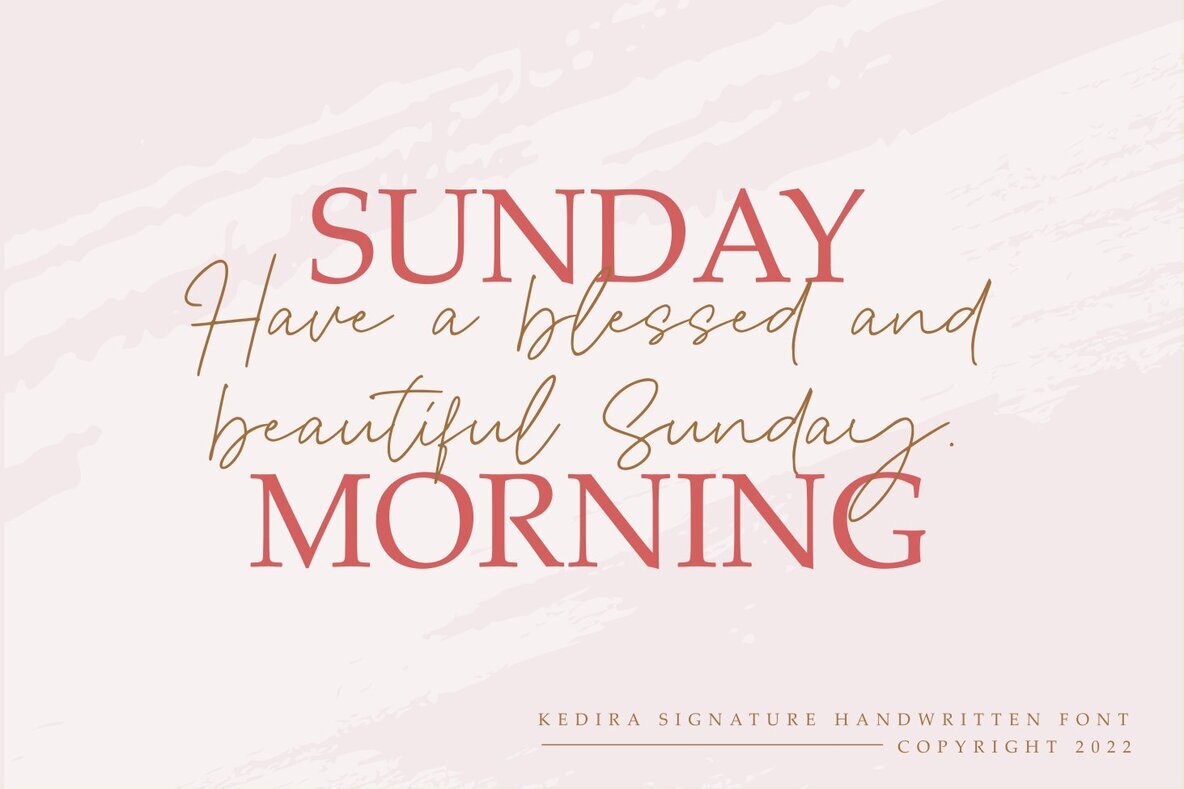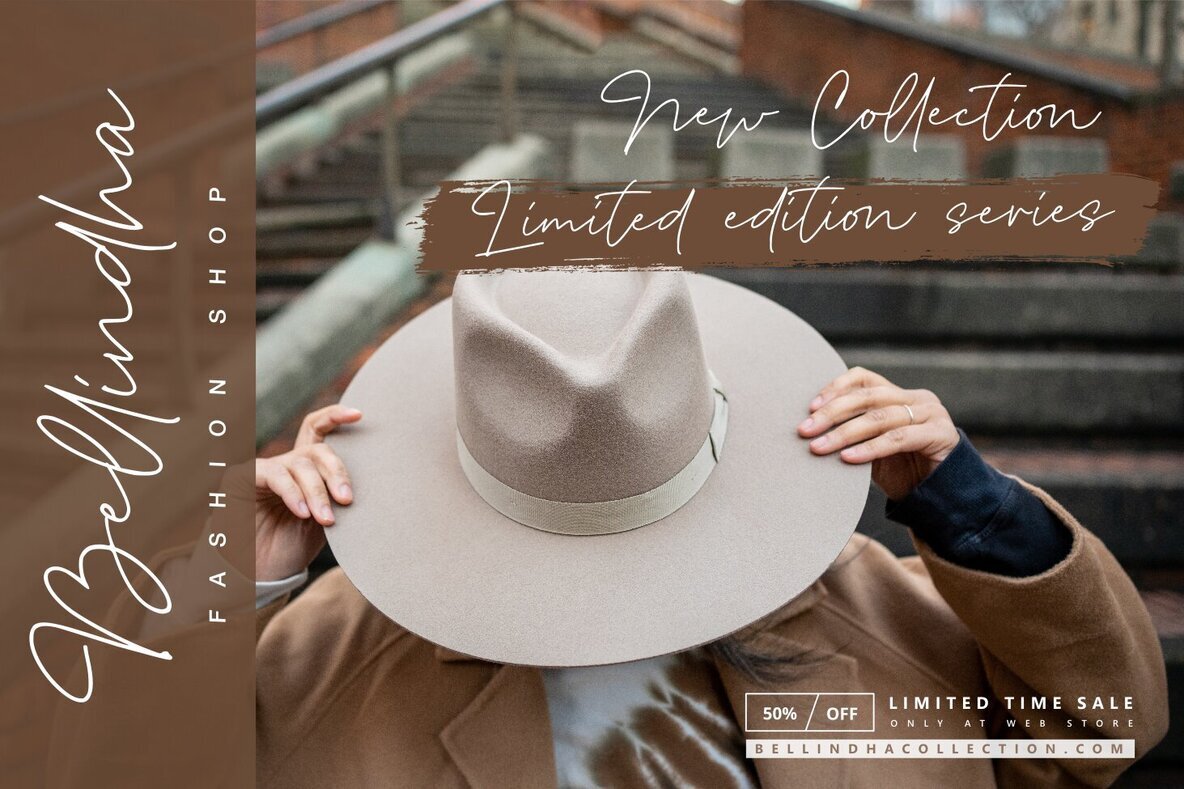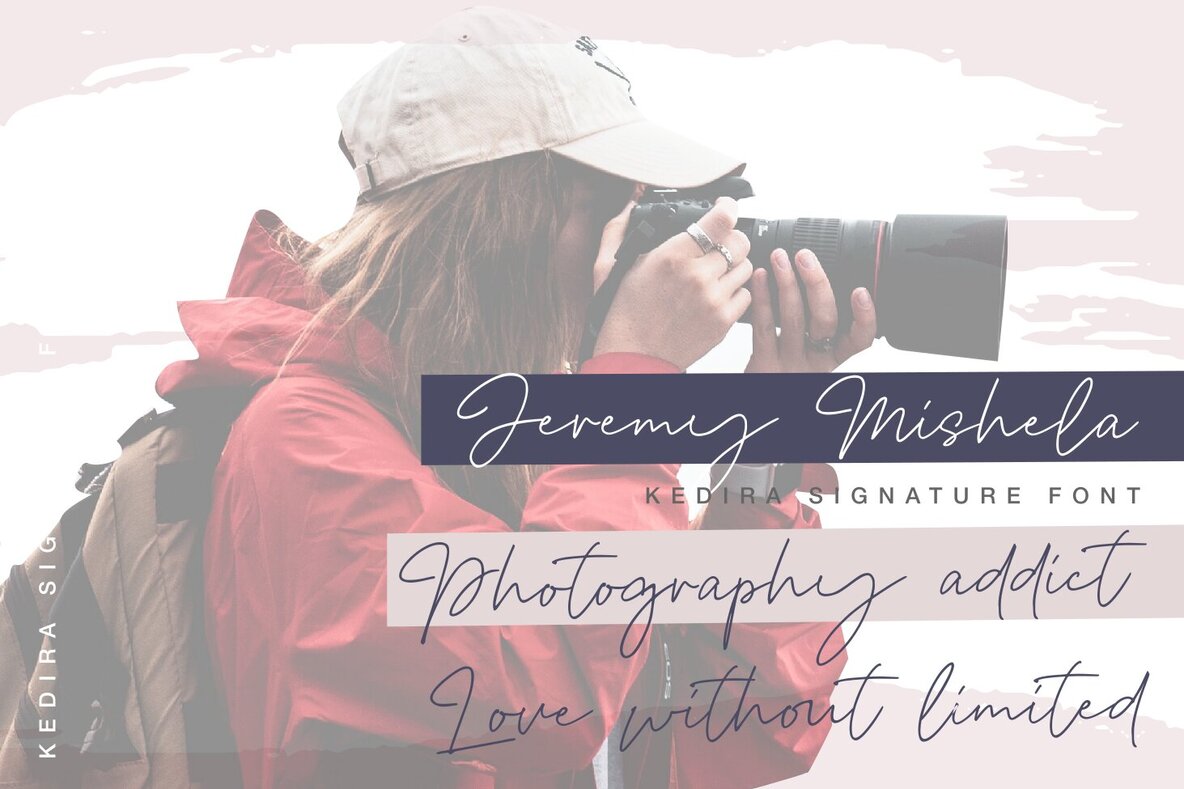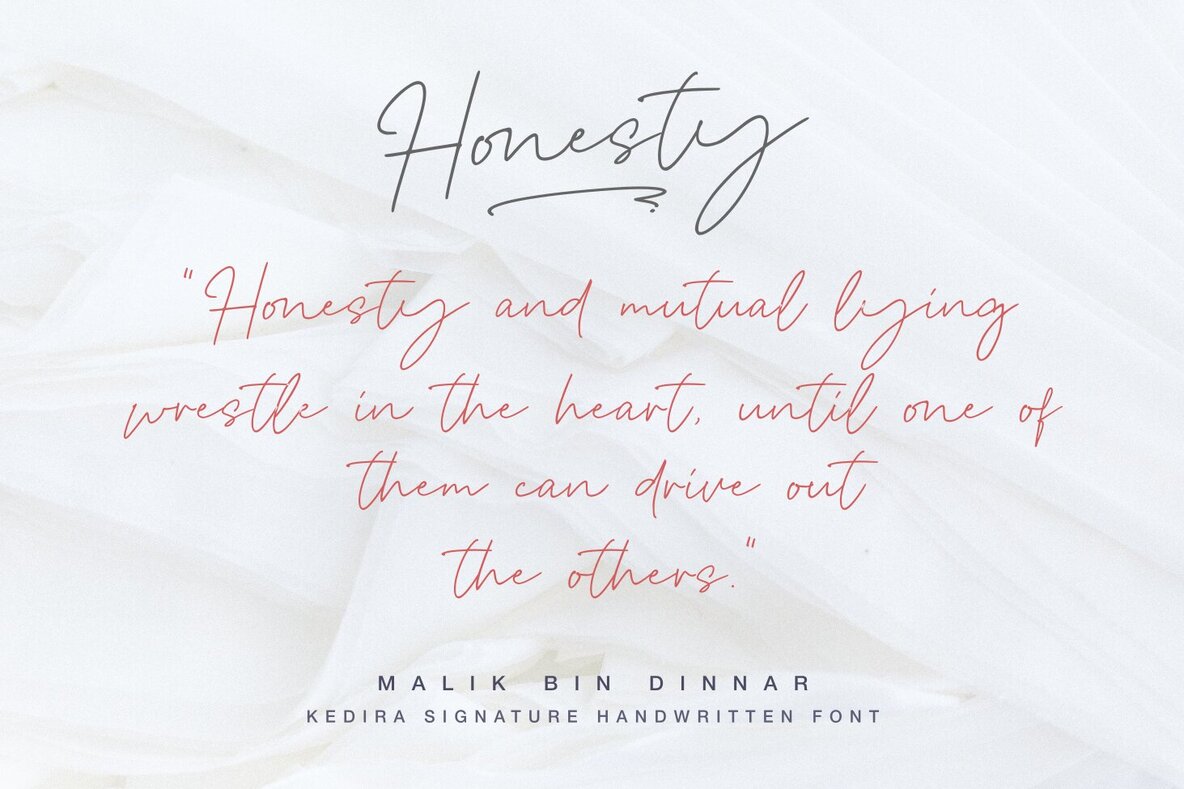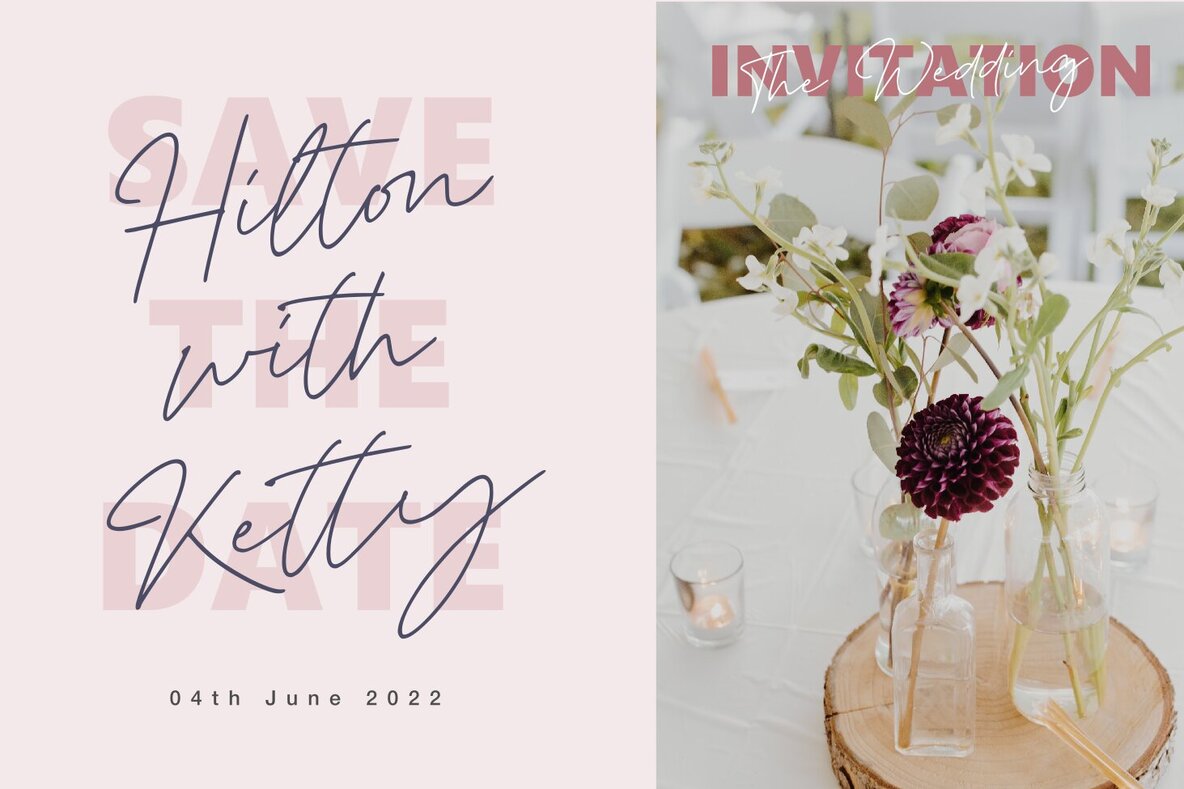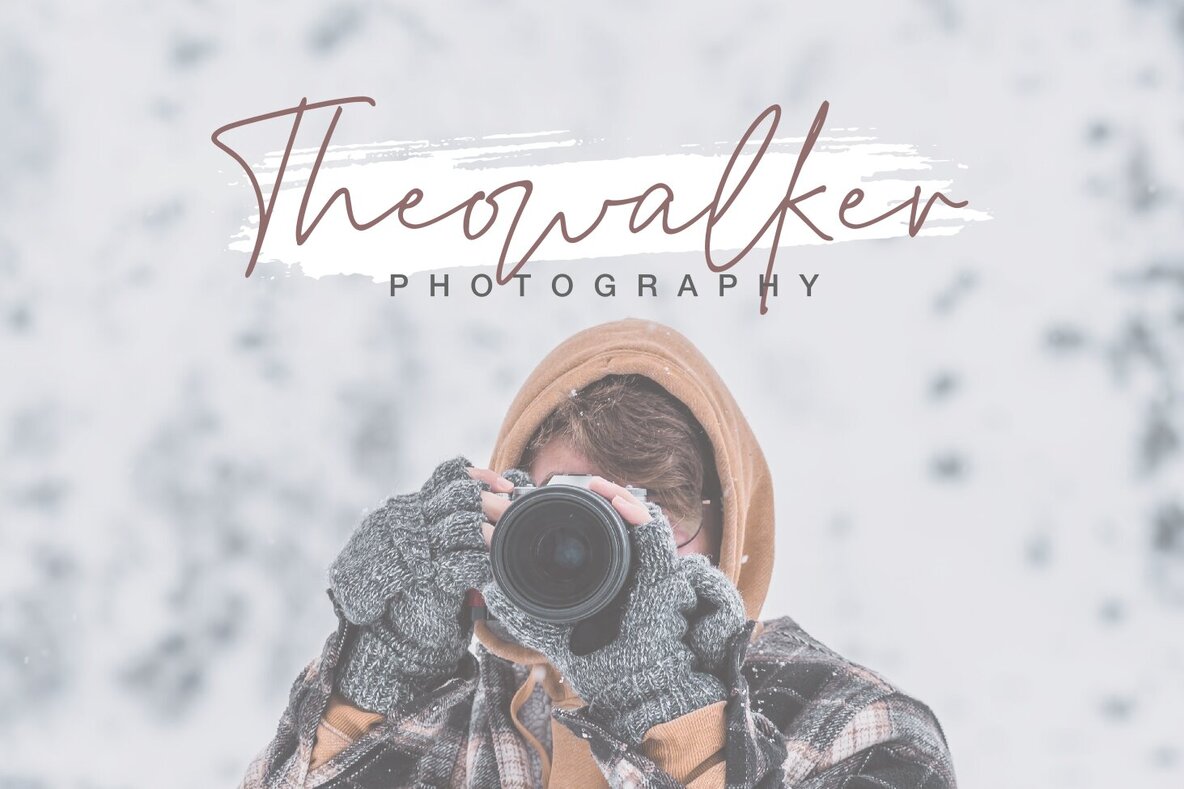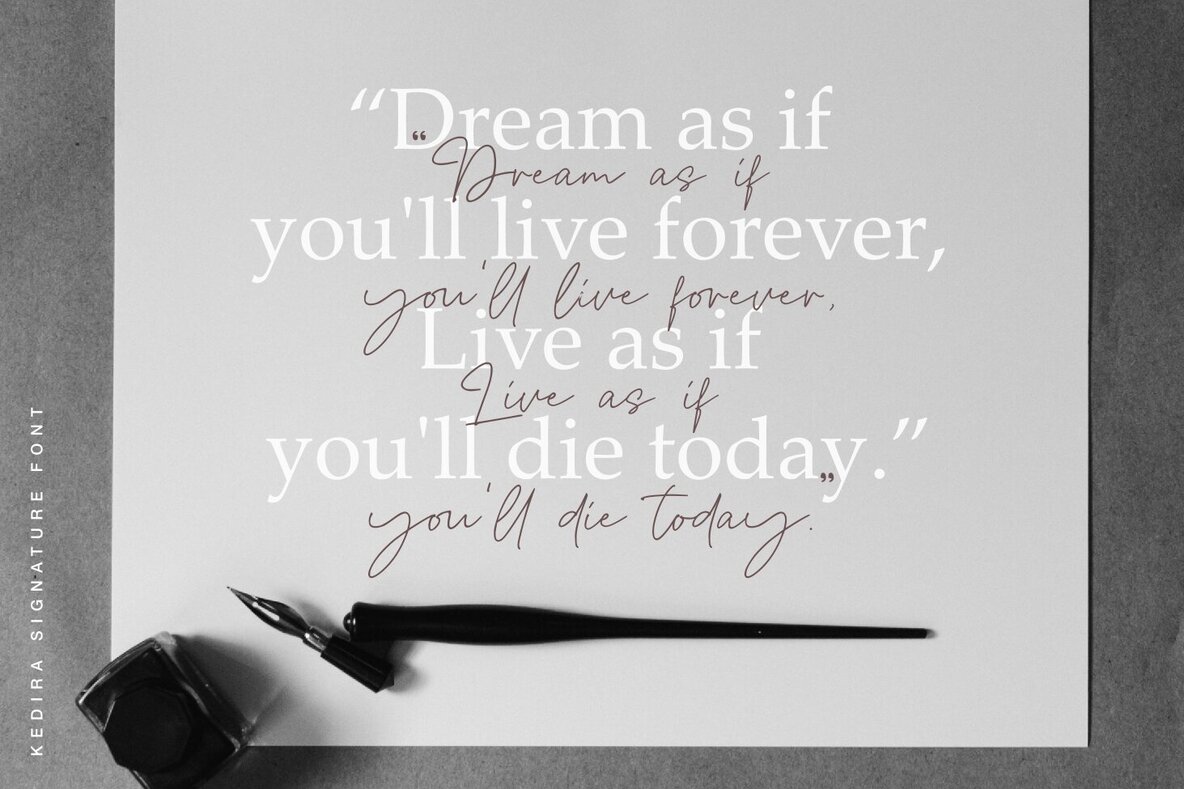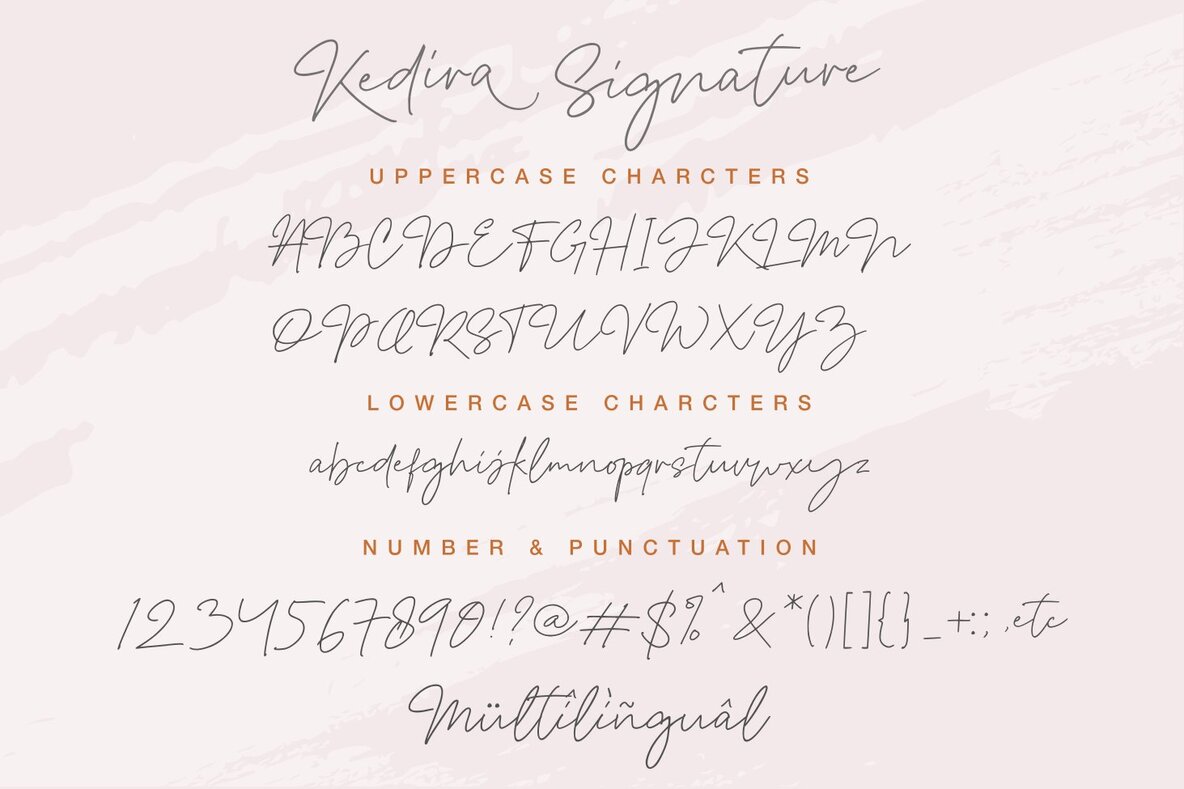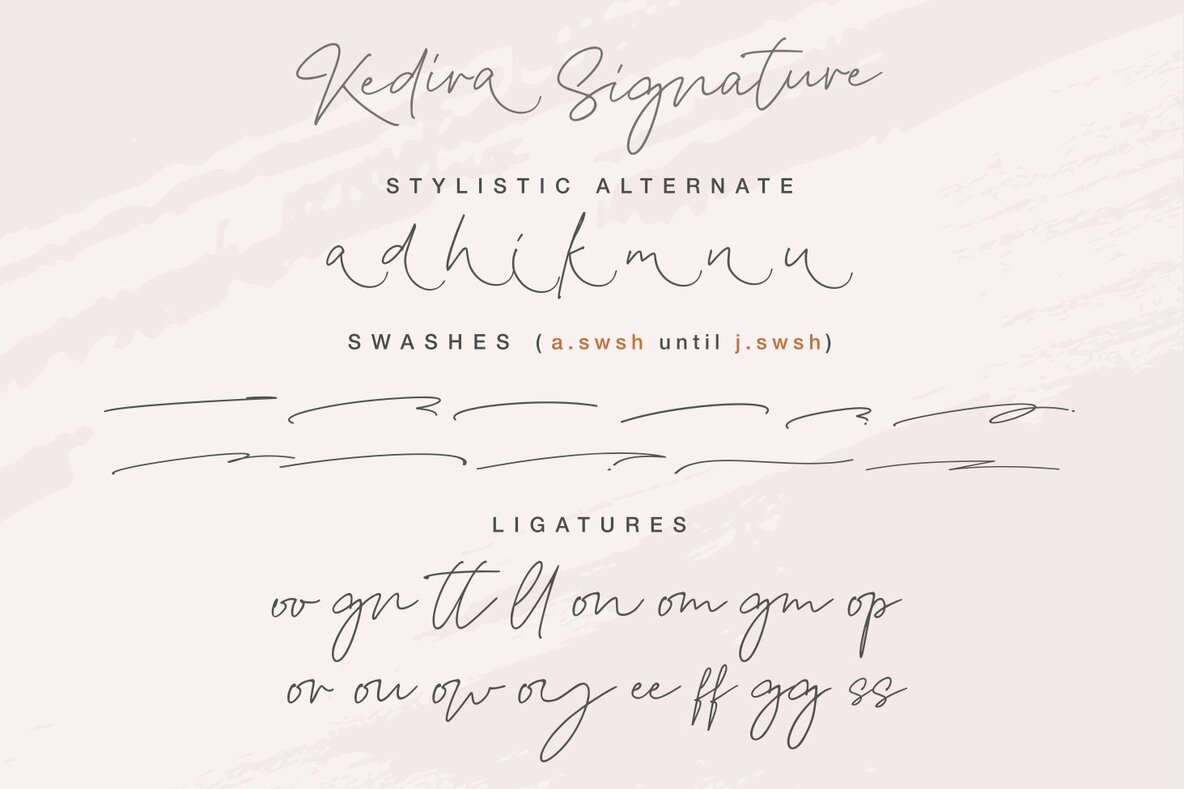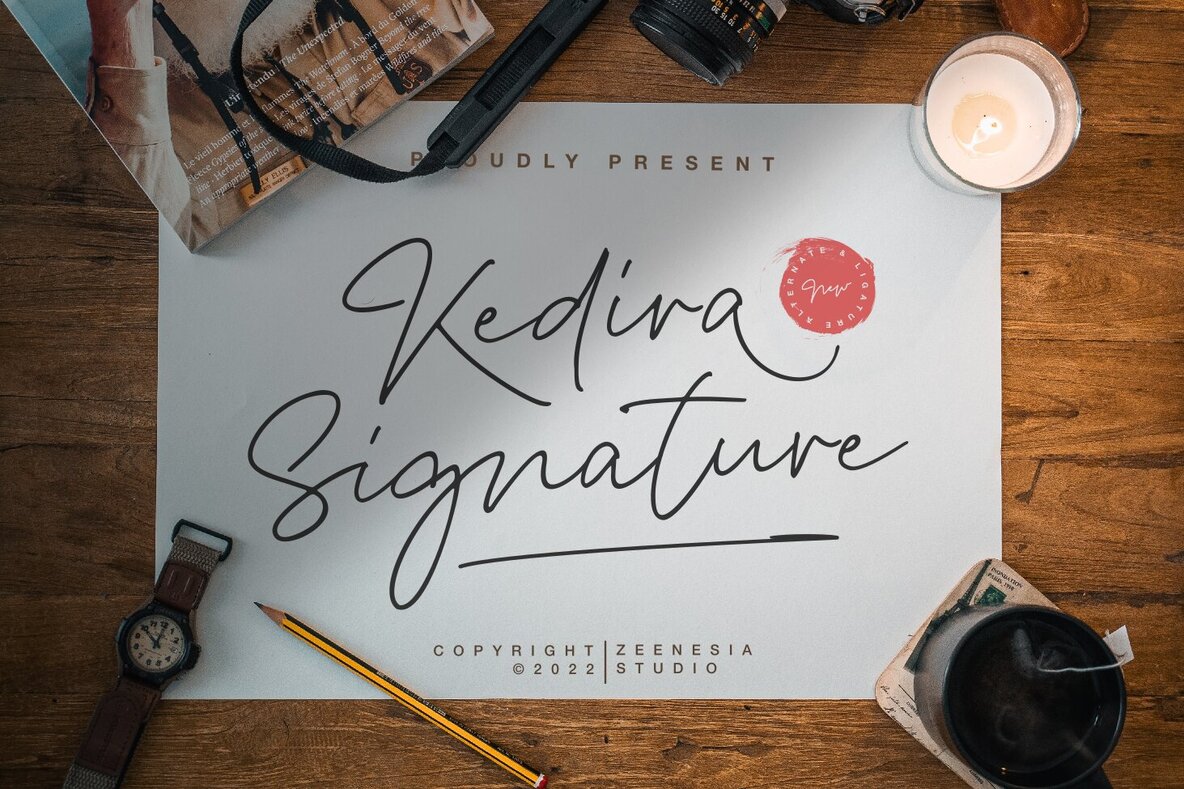
Kedira Signature Font
Kedira Signature
Kedira Signature is a delicately crafted, thin-lettered script font designed to bring elegance to your projects. This font is PUA encoded, allowing easy access to all glyphs and swashes, making it an ideal choice for a variety of design applications.Kedira Signature: Thin Script Font with Elegance